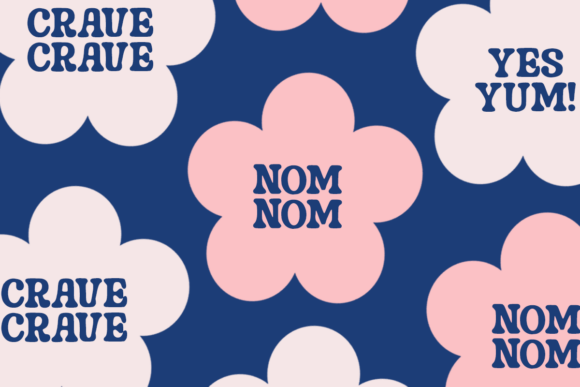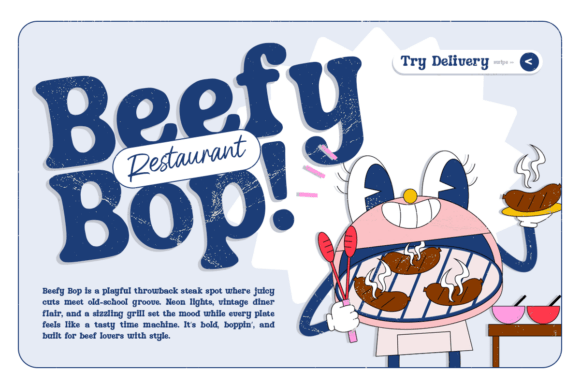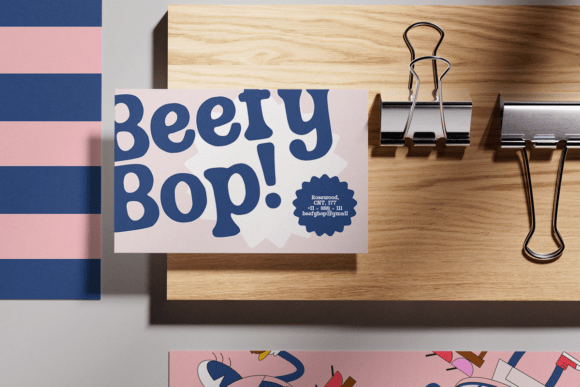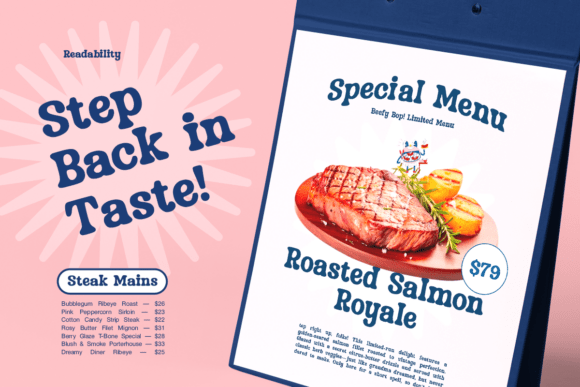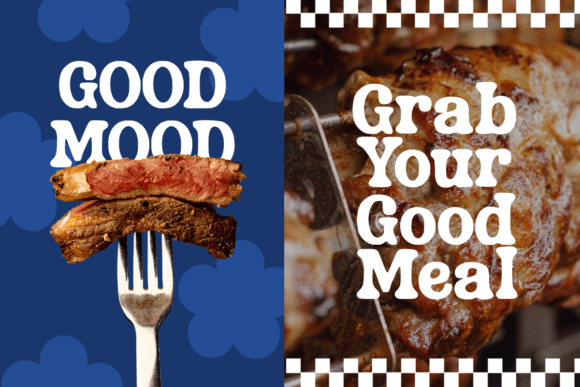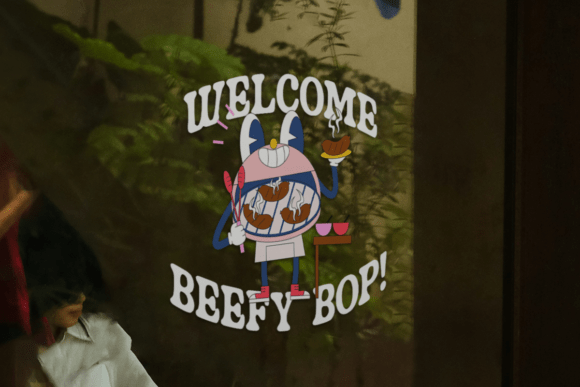
Get Ready to Savor the Flavor with the Bolder Hinger Font
Have you ever stumbled upon a retro diner or vintage café and felt an instant craving for the nostalgic atmosphere? That’s exactly the vibe that the Bolder Hinger Font aims to capture – a bold and groovy typeface that screams fun, friendly, and full of flavor. This charming font is inspired by classic diner signage, vintage packaging, and mid-century restaurant design, making it the perfect choice for food brands that want to stand out from the crowd.
For designers looking to add a dash of personality to their projects, the Bolder Hinger Font is a valuable asset. Its chunky curves and playful letterforms bring a sense of warmth and energy to any design, making it ideal for restaurant logos, café menus, product packaging, posters, and social media branding.
Bolder Hinger Font Key Features
- Font Family: Bolder Hinger is a unique, custom font designed for various applications.
- Unique Characteristics: Bolder Hinger features a bold, modern design with rounded edges and a clean aesthetic, making it ideal for headings and titles.
Bolder Hinger Font Review
I recently had the chance to work with the Bolder Hinger Font, and here’s my honest review.
- The font is indeed bolder, making it perfect for headings and titles. It’s easy to read and catches the eye.
- The font is highly customizable, allowing you to adjust the weight, size, and spacing to fit your design needs.
- It’s available in a wide range of languages, making it a great option for multilingual projects.
- The font is well-behaved, rendering consistently across different devices and browsers.
- The font can feel a bit overwhelming if used extensively throughout a design. It’s best to use it sparingly to maintain visual balance.
- Some users may find the font too bold, which can be a challenge for certain design styles or industries.
- The font doesn’t come with a comprehensive character set, which may limit its use for certain languages or character sets.
Overall, I’d say the Bolder Hinger Font is a solid choice for designers looking for a bold, eye-catching font. While it has some limitations, it’s well-behaved and highly customizable. With careful use, it can add a nice touch to your designs.
Some tips to get the most out of Bolder Hinger Font include:
– Using it for headings and titles to add a touch of elegance.
– Pairing it with other fonts to create a unique and eye-catching design.
– Using it for logos and branding materials to create a professional look.
– Experimenting with different font sizes and styles to add visual interest.
Alternatives to Bolder Hinger Font
1. Lato
Lato is a modern sans-serif font with a clean and elegant design. It is ideal for use in digital products, logos, and headlines. Lato is more rounded and has a softer feel compared to Bolder Hinger Font, making it a great choice for designs that require a friendly and approachable tone.
Montserrat is a geometric sans-serif font with a strong and modern feel. It is perfect for use in urban, technological, and innovative designs. Montserrat is more angular and has a more aggressive feel compared to Bolder Hinger Font, making it a great choice for designs that require a bold and edgy tone.
Open Sans is a clean and modern sans-serif font with a friendly and approachable tone. It is ideal for use in digital products, blogs, and articles. Open Sans is more straightforward and has a neutral feel compared to Bolder Hinger Font, making it a great choice for designs that require a simple and easy-to-read tone.
4. Arial Black
Arial Black is a sans-serif font with a bold and dramatic feel. It is perfect for use in headlines, titles, and announcements. Arial Black is more condensed and has a more dramatic feel compared to Bolder Hinger Font, making it a great choice for designs that require a bold and attention-grabbing tone.